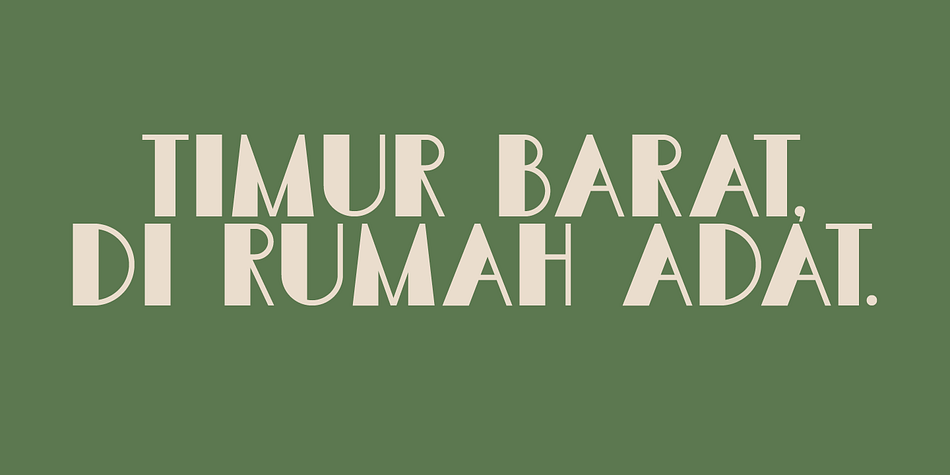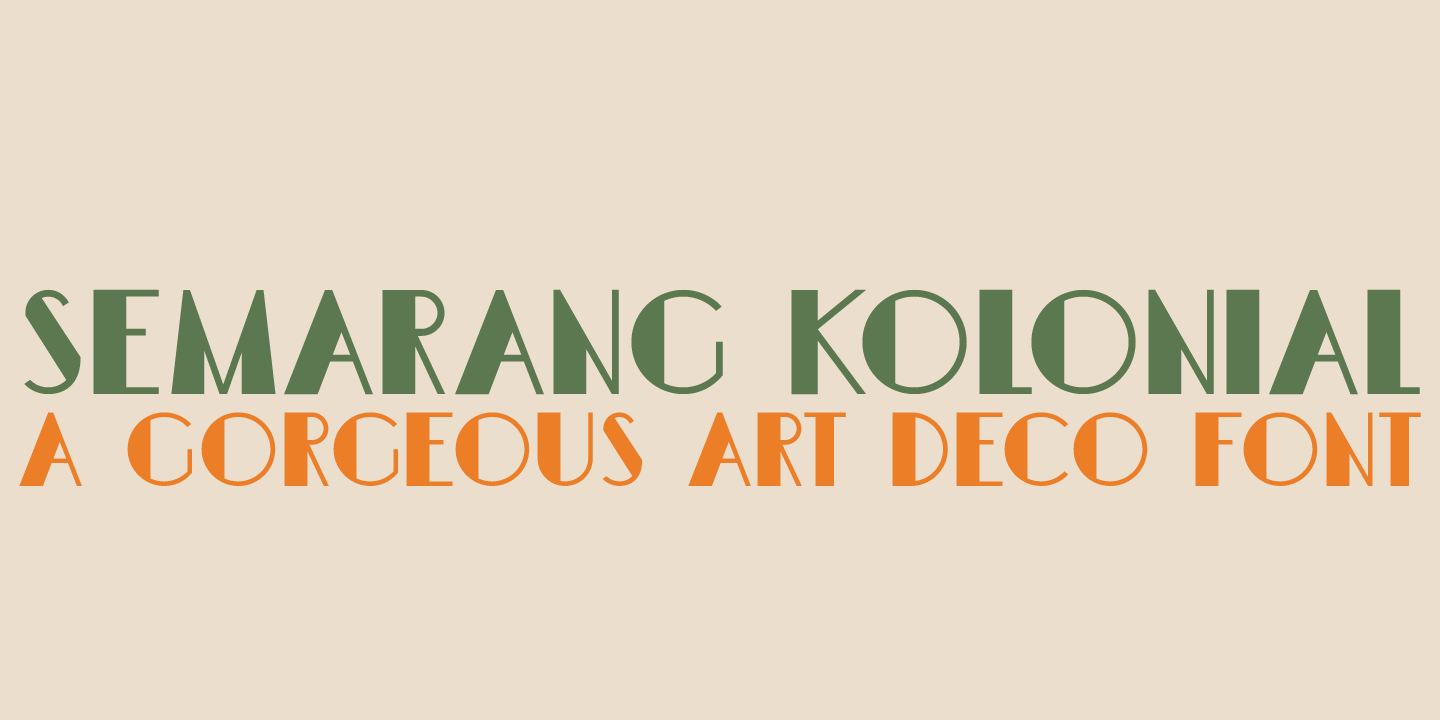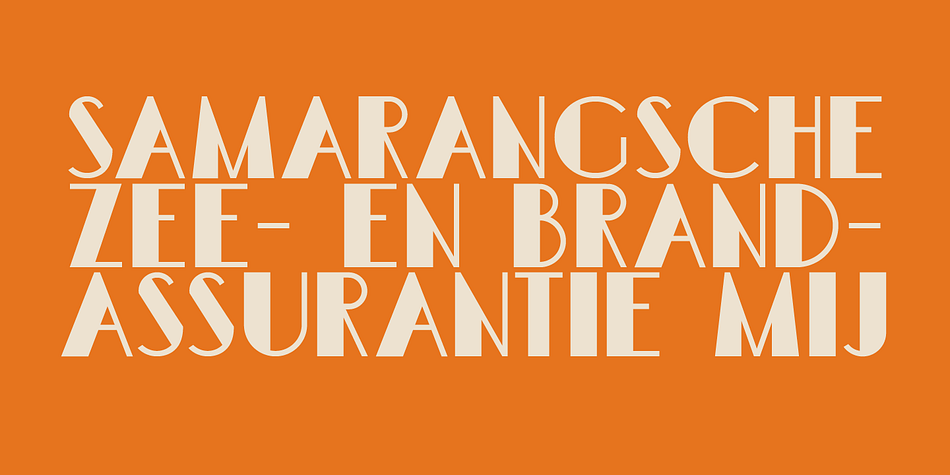
Semarang Kolonial is a art deco font family. This typeface has two styles and was published by Hanoded.
Semarang Kolonial is a stylish, all caps Art Deco font. It is not a recreation of a particular typeface; merely my salute to a bygone era and to the birthplace of my father in law, who recently passed away. Semarang Kolonial goes well with the original Semarang font.